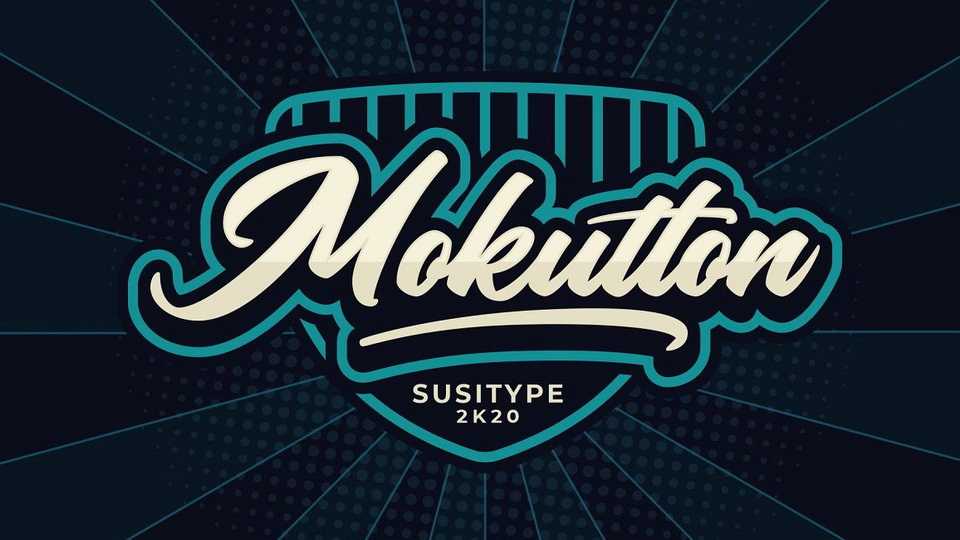
Download Mokutton font, a bold hand lettered script with a powerful character. Mokutton font is perfect for logo, branding, merchandise and advertising and more.
Designer: SusiType